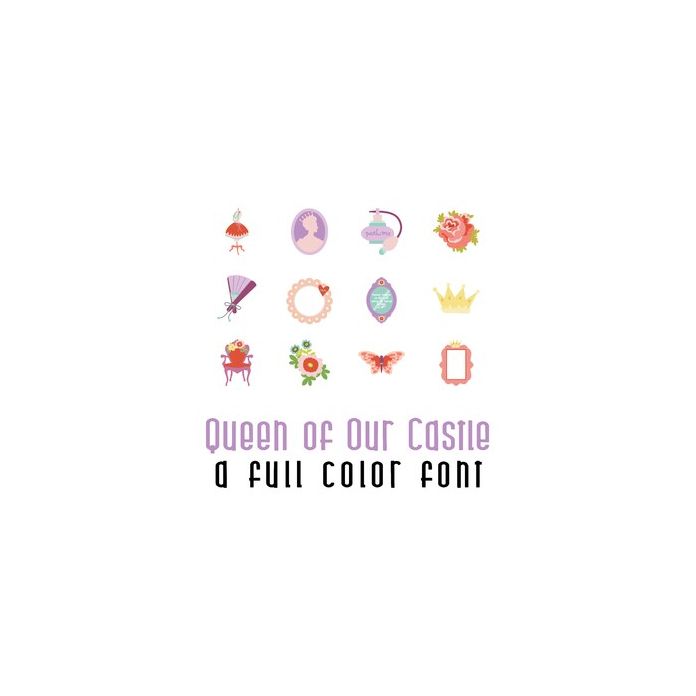
This adorable full-color doodlebat font features 26 beautiful items perfect for Mom. Perfect for cards, crafts, gifts, decor, scrapbook pages, planner stickers, and more!